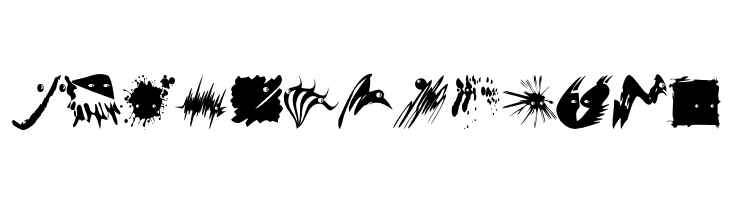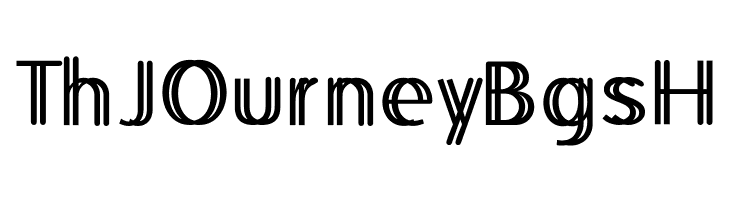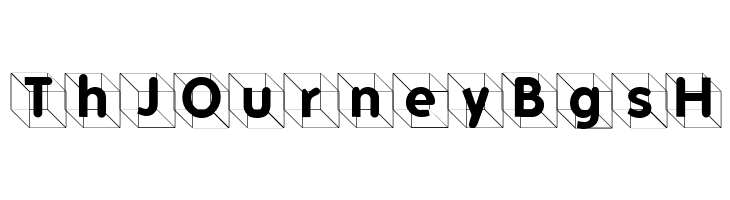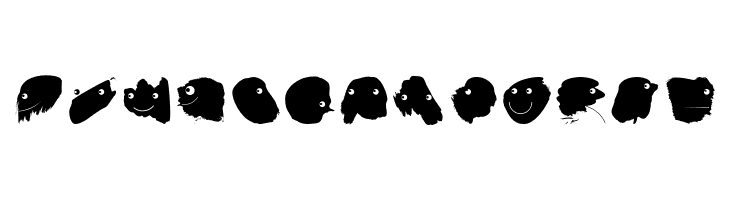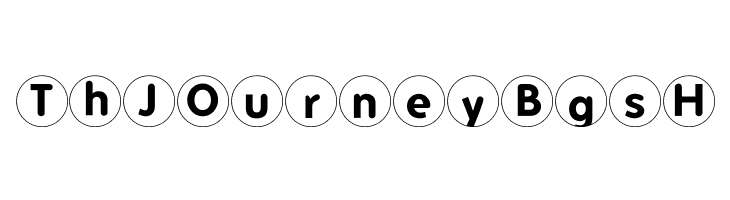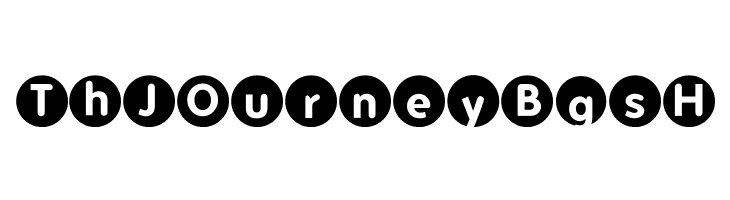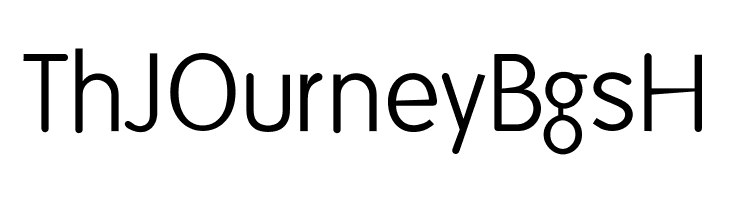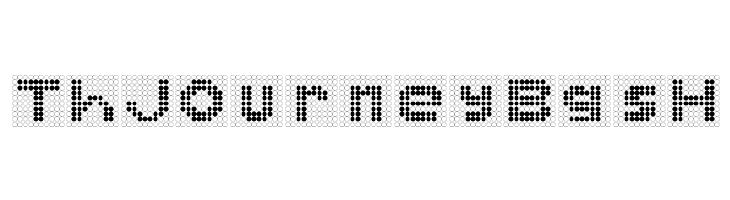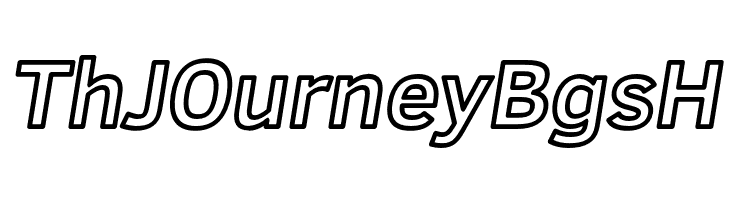
• Fog Sans Outline Italic
A modern sans-serif outline font with an italic style, offering a clean and dynamic look.
• FolksCircleNegative
A bold, modern font with characters in white on black circles.
• FolksCirclePositive
A bold, sans-serif font with characters enclosed in circles, offering a playful and modern look.
• FolksDecoon-Light
A modern, geometric sans-serif font with a light weight and clean design.
• FolksInCube
A bold, geometric font with characters encased in 3D cubes, offering a modern and playful look.
• FolksTwins
A bold, modern font with a double-line effect and geometric structure.
• font48413
A dot matrix style font with a modern, digital aesthetic.
• FontBetaOne
Expressive, hand-drawn illustrative font with cartoon faces and abstract elements.
• FoolOnTheHill
A whimsical, creature-inspired decorative font with playful and abstract shapes.
• FoolsThree
Abstract symbols, not a valid font.